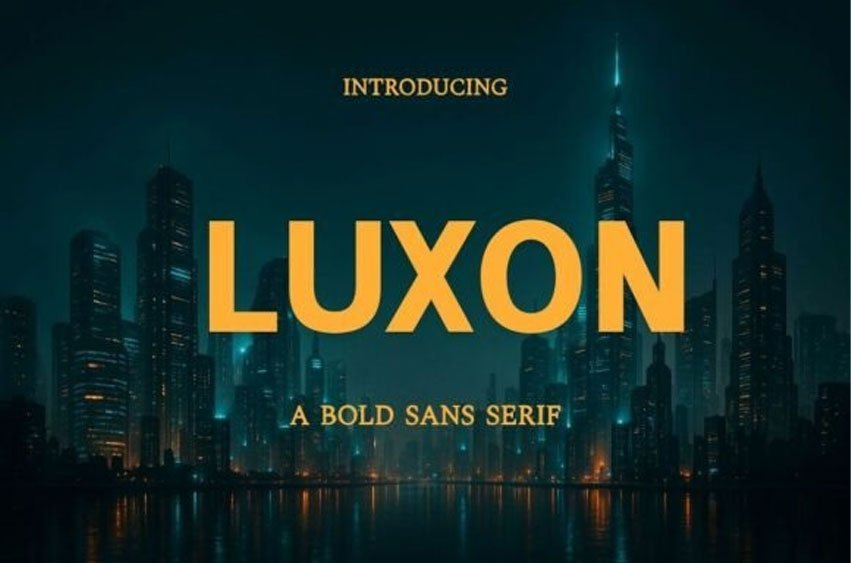
Luxon Font is a bold sans serif font with clean lines and a subtle retro feel. Its rounded edges and solid structure make it perfect for display use, especially in logos, headlines, posters, packaging, and branding projects.
This typeface blends vintage charm with modern simplicity, making your designs feel both timeless and strong. Whether you’re working on a label, an ad campaign, or a bold brand identity, Luxon is built to grab attention and stay clear.